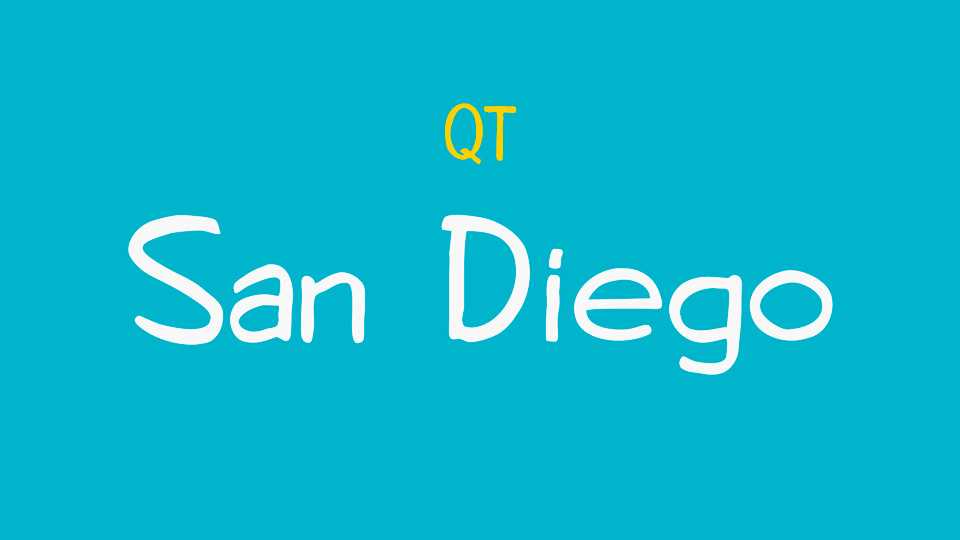
Download San Diego font, a casual neat and legible handwritten script to give your design a realistic, handmade look. San Diego font is suitable for numerous occasions where handwriting makes a better impression.